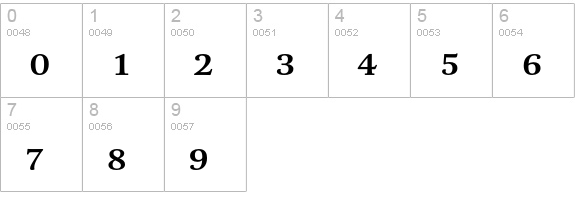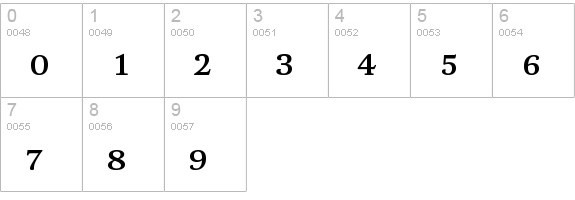
DTLUnicoT-CapsMedium is a stylish and versatile font that exudes modernity and sophistication. Its bold yet elegant design makes it perfect for a wide range of projects, from branding to editorial design. The clean lines and unique character shapes give this font a distinctive look that is sure to make your designs stand out. Best of all, DTLUnicoT-CapsMedium is available for free download at FontsMarket.com. This means you can easily access this high-quality font and use it in your projects without any cost. Don't miss out on the opportunity to enhance your designs with this beautiful typeface!